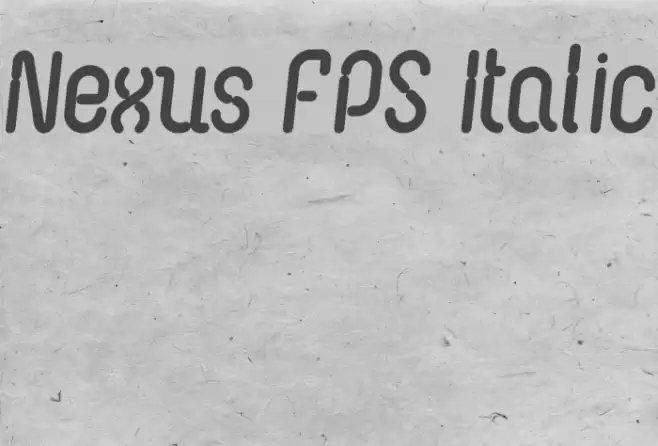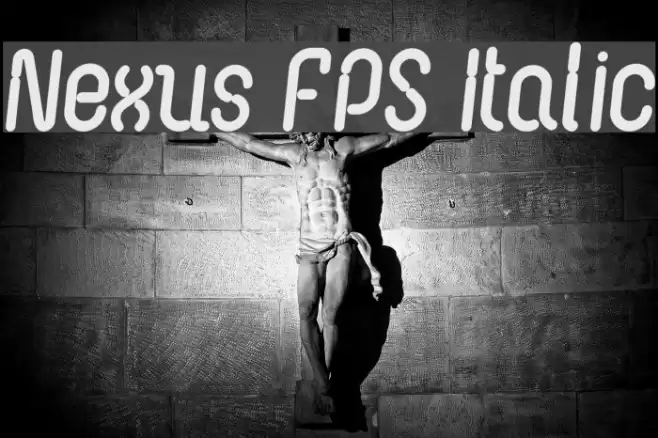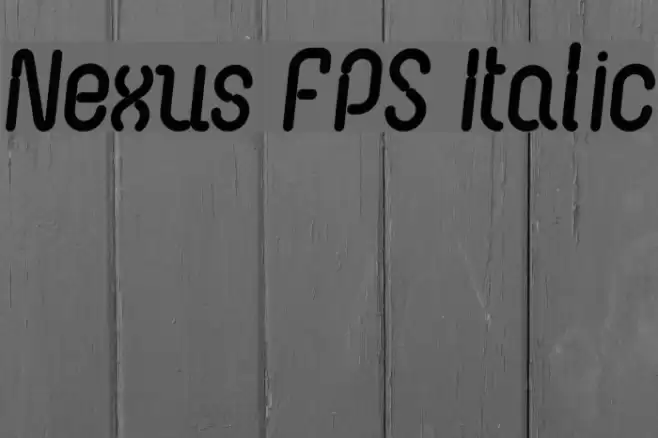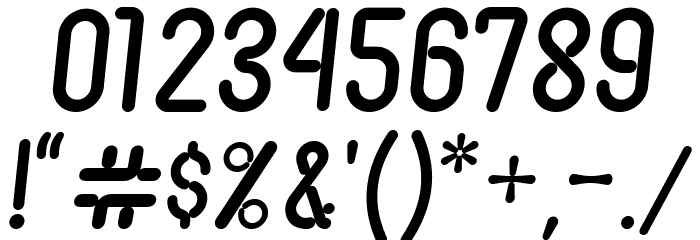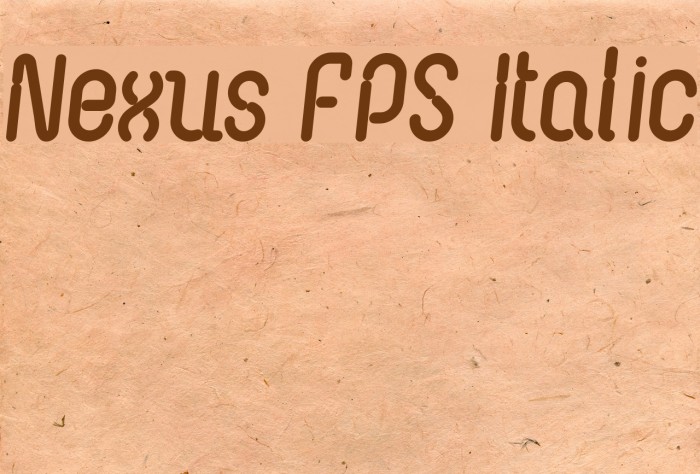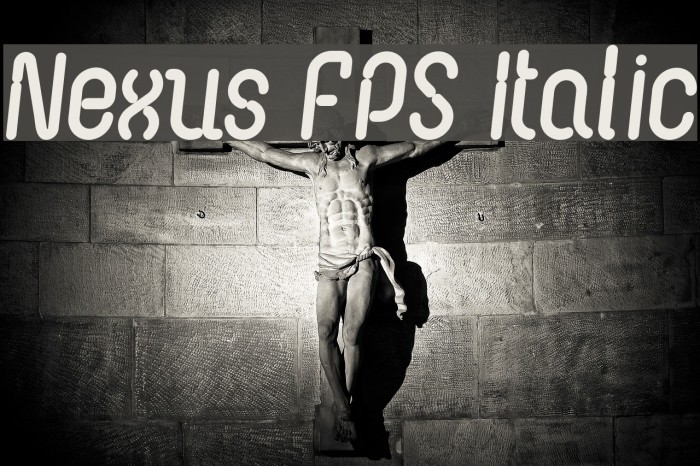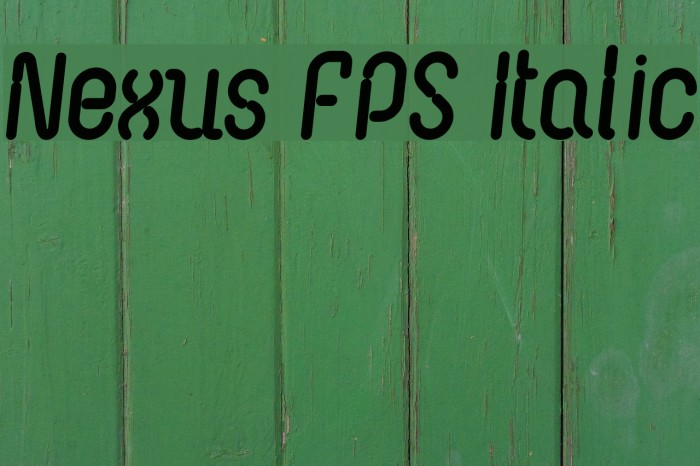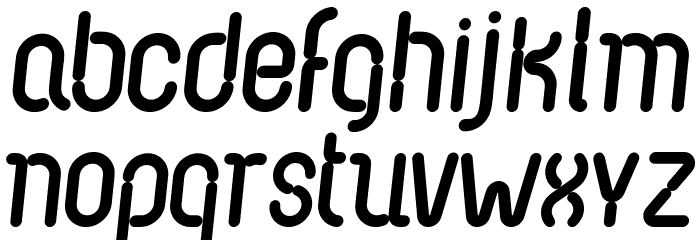
Nexus FPS Italic Font
Nexus FPS Italic Description
This font features a modern, sleek design with a distinctive italic slant that gives it a dynamic and forward-moving appearance. The characters are rounded with a consistent stroke width, creating a harmonious and fluid look. The uppercase and lowercase letters maintain a uniform style, with smooth curves and minimalistic details. The numerals and special characters are designed to match the overall aesthetic, ensuring visual consistency across all elements. This font's clean and contemporary style makes it versatile for various applications.
A modern, italic font with rounded, consistent strokes and a sleek, dynamic appearance from Sci-fi fonts.
- Proposed Projects: Ideal for branding, advertising, and digital media projects where a modern and dynamic look is desired.
- Use Case: Headlines, Logos, Digital media